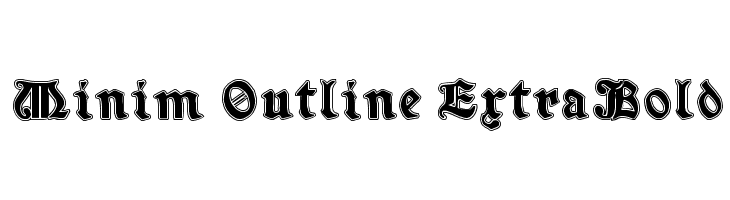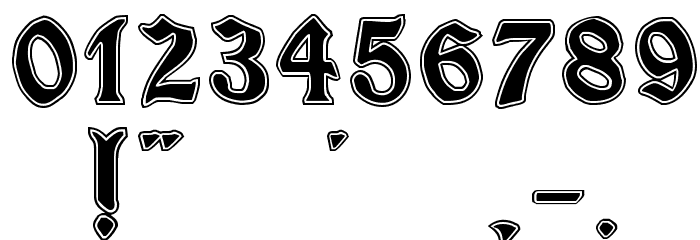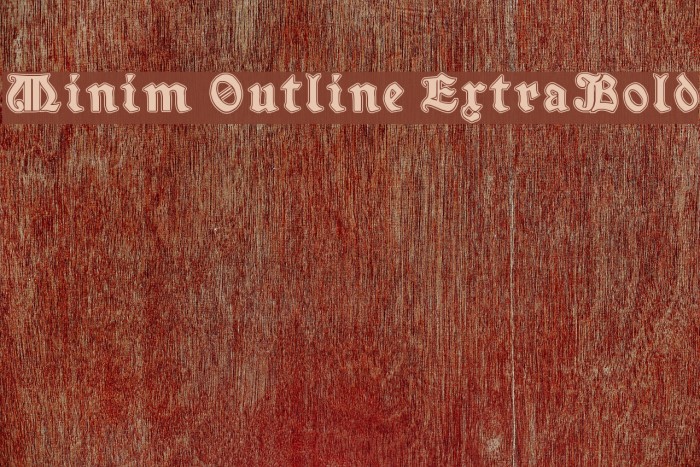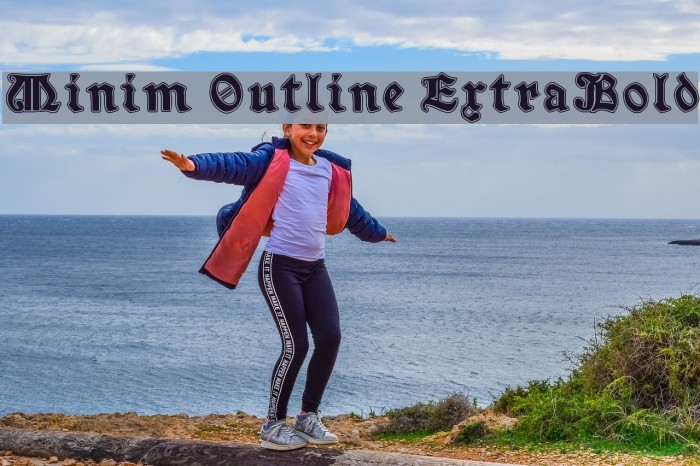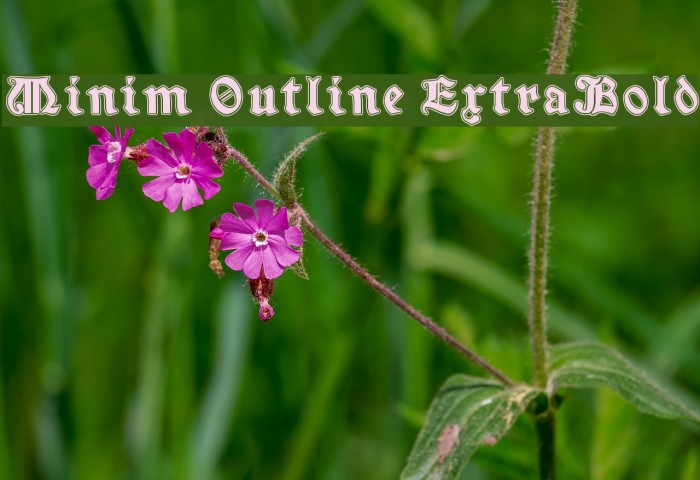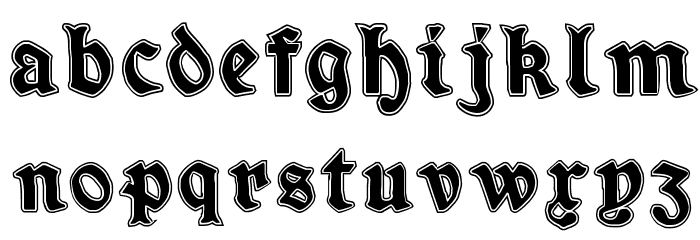
Minim Outline ExtraBold Font
Minim Outline ExtraBold Description
This font features a bold, outlined style with a strong presence, reminiscent of traditional blackletter typography. The characters are highly decorative, with intricate details and sharp edges that give them a distinct, gothic appearance. The uppercase and lowercase letters maintain a consistent style, with a uniform thickness in the outlines that enhances their boldness. Numbers and special characters are designed to match the ornate style, making them suitable for dramatic and impactful designs. The font's overall aesthetic is both classic and eye-catching, perfect for projects that require a touch of elegance and historical flair.
A bold, outlined blackletter font with a gothic, decorative style from Script fonts.
- Proposed Projects: Ideal for posters, logos, book covers, and any design requiring a dramatic, historical touch.